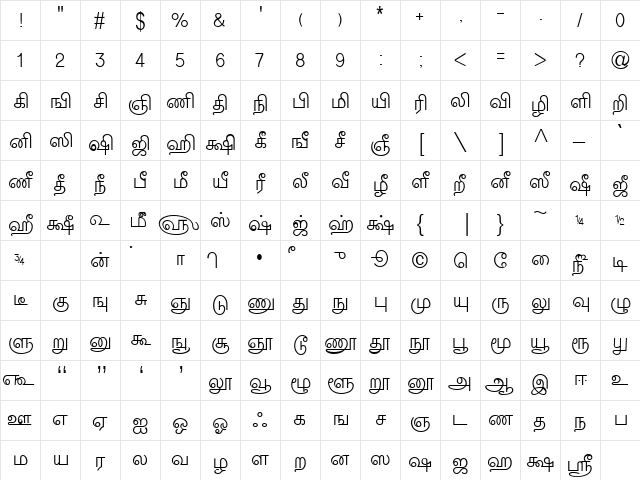
TAMLKamban Normal
Design Context for TAMLKamban Typeface
TAMLKamban takes a measured approach to typography — its balanced proportions and neutral character make it a reliable workhorse for both digital and print work.